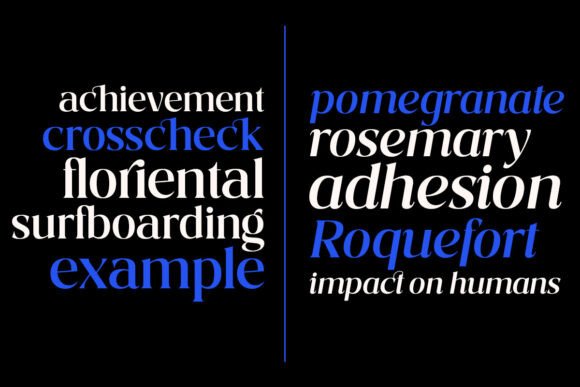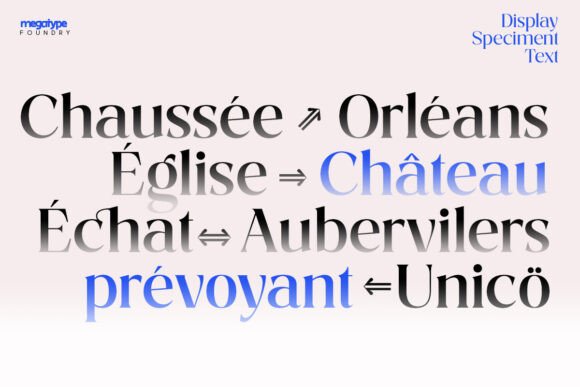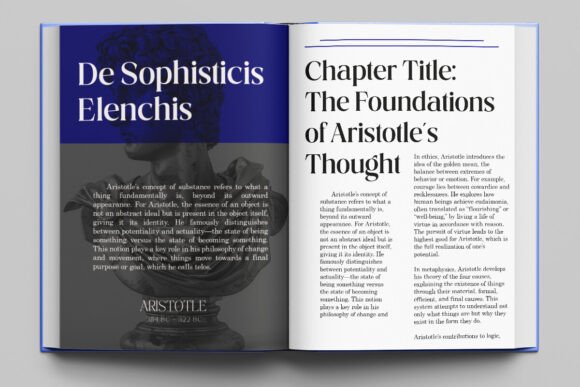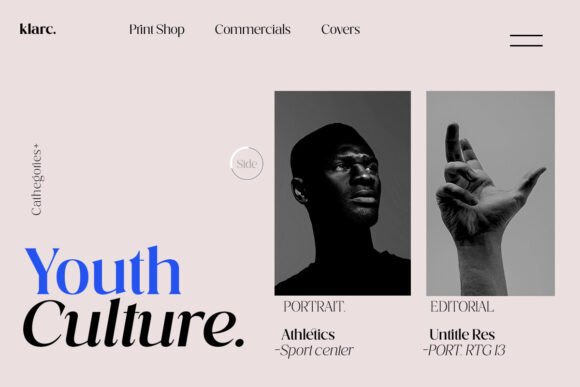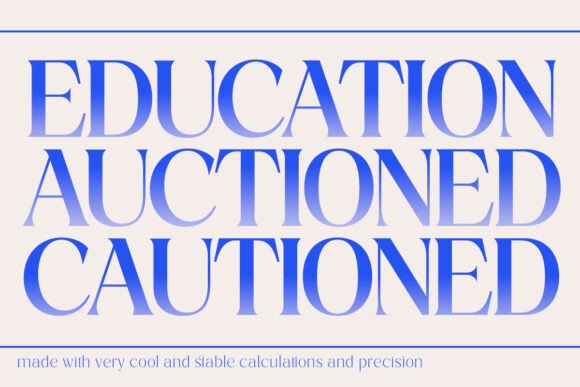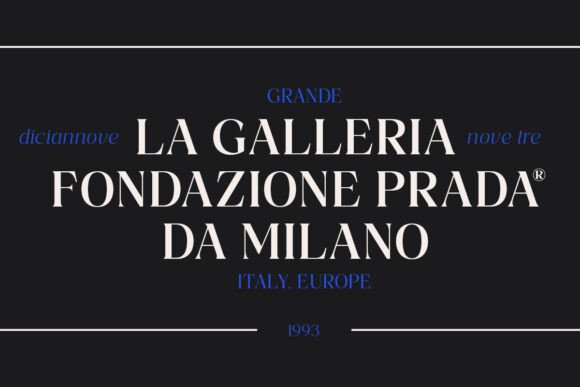
Discover the Elegance of Costaline Bold Font: Elevate Your Designs with Style
In the world of typography, a font can make or break a design. For designers and crafters seeking a typeface that exudes both classic elegance and modern flair, Costaline Bold is an exceptional choice. This harmonious and stylish contemporary serif typeface is designed to bring a touch of sophistication to various design projects, making it a versatile tool for creative professionals.
What Makes Costaline Bold Stand Out?
Costaline Bold is not just another serif typeface; it’s a comprehensive font family that includes vertical and italic styles. This range of styles allows designers to explore and refine their designs with ease, uncovering many visual nuances and hidden secrets that might otherwise go unnoticed. The inclusion of both vertical and italic versions ensures that designers have the flexibility to create beautiful, dynamic text that captures the essence of their vision.
A Perfect Choice for Diverse Design Projects
Whether you’re working on editorial designs, headlines, branding projects, logo design, packaging, magazine titles, advertisements, or even web design, Costaline Bold is the perfect companion. Its classic feel, combined with a contemporary edge, makes it suitable for both short and long texts. This versatility is invaluable for designers who need a reliable font that can adapt to different contexts and applications.
Key Features of Costaline Bold Font
- Contemporary Serif Typeface: Costaline Bold boasts a modern take on traditional serif fonts, making it stand out in any design.
- Comprehensive Style Range: With vertical and italic styles included, designers have a wide range of creative possibilities.
- Elegant and Readable: The font’s classic feel ensures readability, while its stylish nuances add an element of sophistication.
- Versatile Application: Suitable for editorial design, headlines, branding, logos, packaging, magazine titles, ads, web design, and more.
Enhancing Your Designs with Costaline Bold
Costaline Bold’s design is meticulously crafted to bring out the best in your projects. Its elegant lines and classic structure make it an excellent choice for:
- Editorial Design: Bring a touch of sophistication to magazines, newspapers, and digital publications.
- Branding and Logo Design: Create memorable brand identities with a font that exudes professionalism and style.
- Web Design: Enhance user experience with a readable and stylish font that works well across various devices.
- Advertising: Grab attention with headlines and body text that are both stylish and clear.
Tips for Using Costaline Bold Effectively
To maximize the potential of Costaline Bold, consider the following tips:
- Mix and Match Styles: Combine vertical and italic styles to create visual interest and hierarchy in your designs.
- Experiment with Sizes: Use different font sizes to emphasize certain parts of your text and create a dynamic layout.
- Pair with Complementary Fonts: While Costaline Bold is versatile on its own, pairing it with complementary fonts can add another layer of creativity to your designs.
Costaline Bold font is a powerful tool for designers and crafters looking to infuse their projects with a blend of classic elegance and modern style. Its comprehensive range of styles, versatility, and elegant design make it an ideal choice for a wide array of design applications. Whether you’re working on a branding project, editorial design, or web design, Costaline Bold is sure to elevate your work and help you achieve your creative goals.
Discover the potential of Costaline Bold today and transform your designs with its timeless beauty and flexibility.